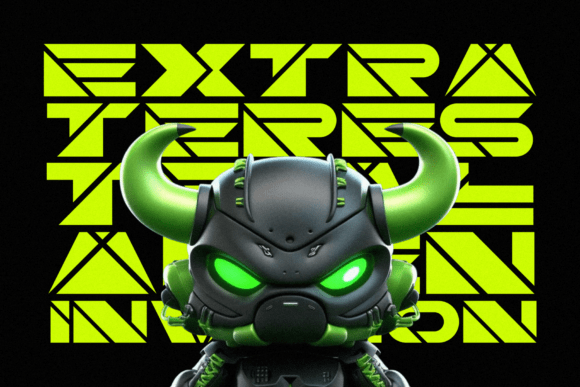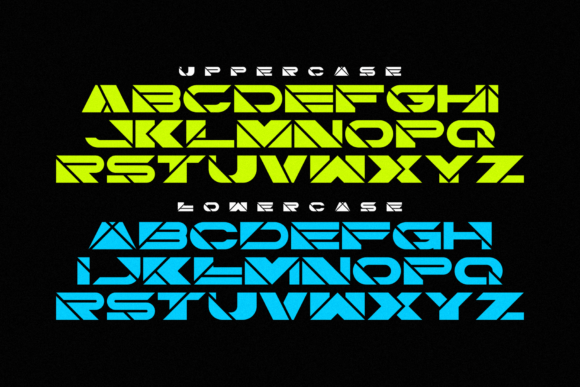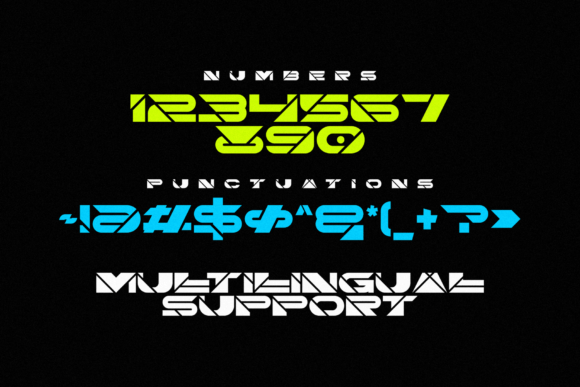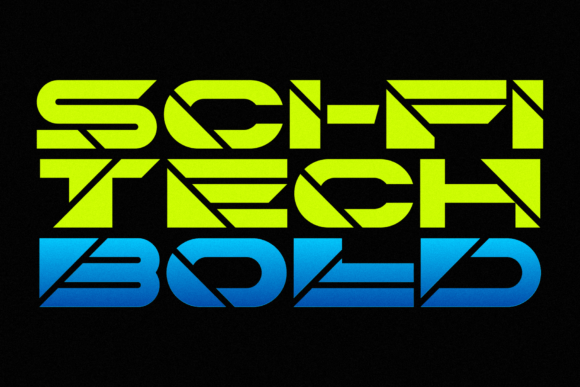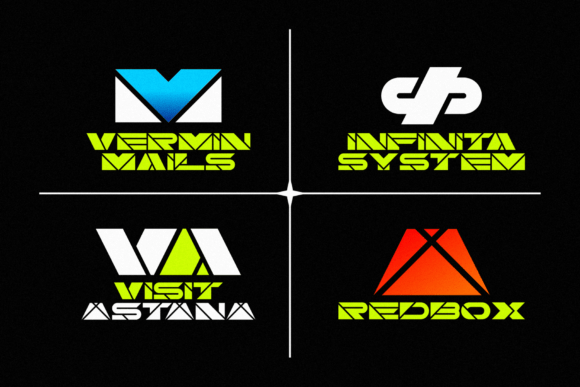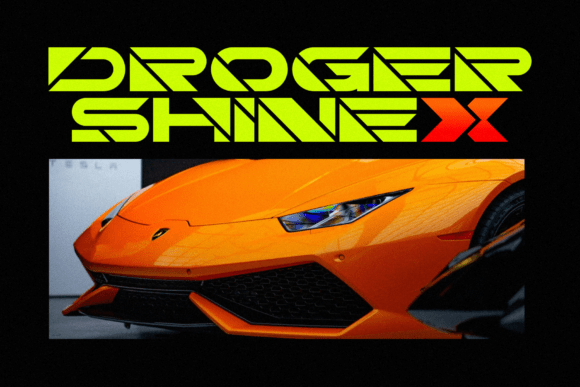
Unlock the Cosmic Power of “Alien Force Font”
Have you ever stared at a blank page, trying to conjure up the perfect design, only to have a burst of creative energy strike and transform your vision into something truly out of this world? That’s the magic of “Alien Force Font,” a vibrant and dynamic typeface that’s ready to propel your designs into the stratosphere.
With its bold, tenacious characters and razor-sharp edges, “Alien Force Font” is the perfect tool for designers looking to inject a unique spirit and character-packed statement into their work. Whether you’re creating logos, posters, movie titles, or anything in between, this font is sure to make a lasting impression.
By incorporating the “Alien Force Font” into your design arsenal, you’ll be able to add a touch of cosmic flair to your projects, setting them apart from the rest and making them truly unforgettable.
Key Features of Alien Force Font
- Size: The font family includes 6 different font weights, ranging from Thin to Black, offering flexibility in design and layout.
- Unique Characteristics: The font features a unique blend of futuristic and sci-fi elements, with a distinctive, otherworldly feel that sets it apart from other fonts.
- Font Metrics: The font includes advanced font metrics, such as ligatures, swashes, and ornaments, allowing designers to add a touch of elegance and sophistication to their work.
Designer Review: Alien Force Font
Overall, I think the Alien Force Font has some great qualities, but it also has its limitations. Let’s start with what works well:
- ✨ Unique and bold design: The Alien Force Font has a distinctive look that sets it apart from other fonts. Its bold lines and angles make it perfect for creating eye-catching headlines.
- ✨ Versatile: Despite its bold appearance, the font is surprisingly versatile and can be used for a variety of purposes, from graphic design to digital interfaces.
- ✨ High-quality glyphs: The font includes a wide range of glyphs, including punctuation marks and special characters, making it suitable for international use.
- ⚠️ Limited legibility at small sizes: While the font looks great at larger sizes, it can become difficult to read at smaller sizes, which may limit its use for body text.
- ⚠️ Not suitable for body text: Due to its bold design, the font may not be the best choice for large blocks of text, as it can become overwhelming and difficult to read.
- ⚠️ Limited font weights: The font only comes in a few different weights, which may limit its use in certain design contexts.
In conclusion, the Alien Force Font is a unique and versatile font that can add a bold touch to your designs. However, it’s essential to consider its limitations and use it judiciously to achieve the best results.
The Alien Force Font is perfect for:
Sci-fi themed designs and presentations.
Galaxy-inspired art and graphics.
Intergalactic branding and marketing materials.
Any project that requires a touch of extraterrestrial flair.